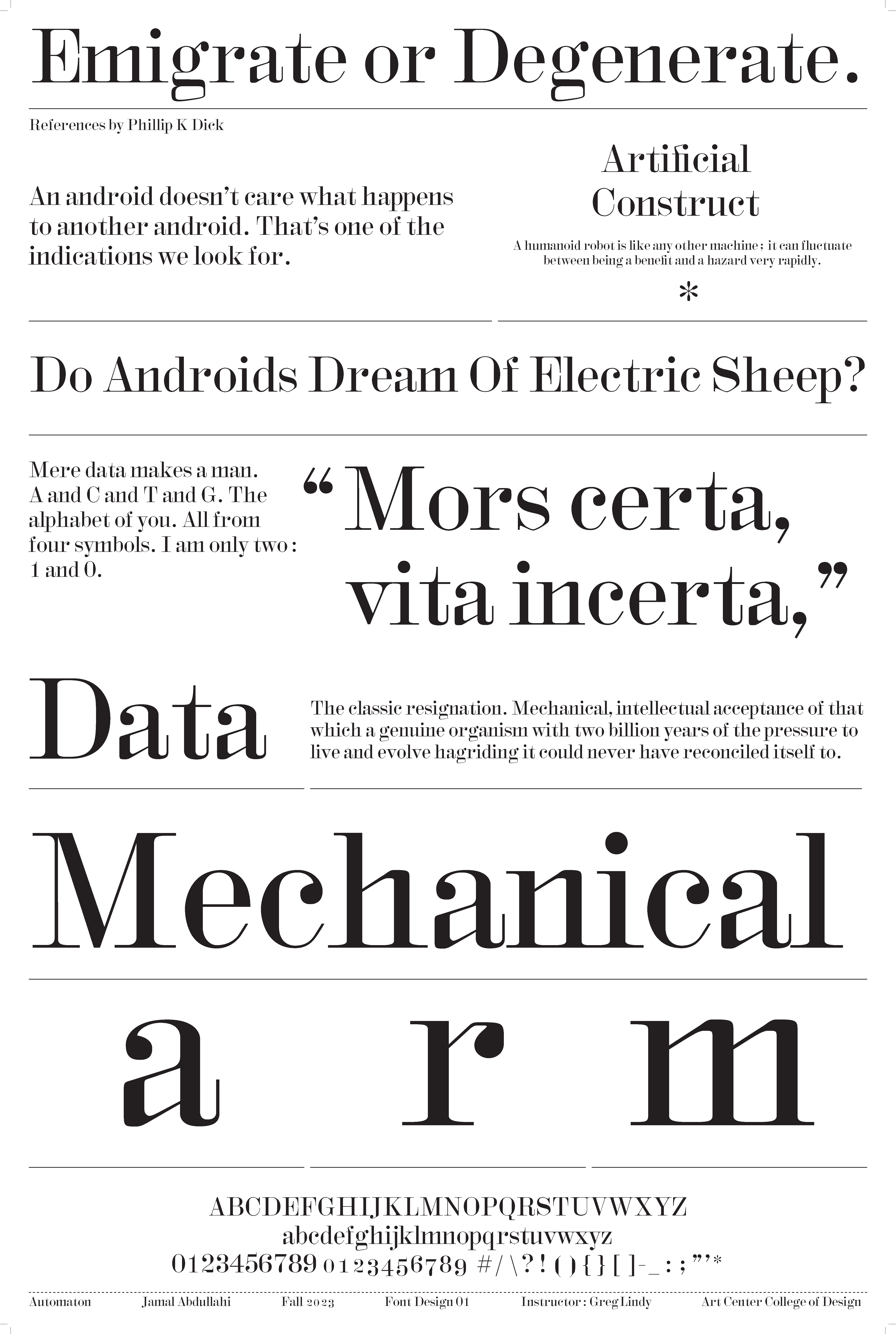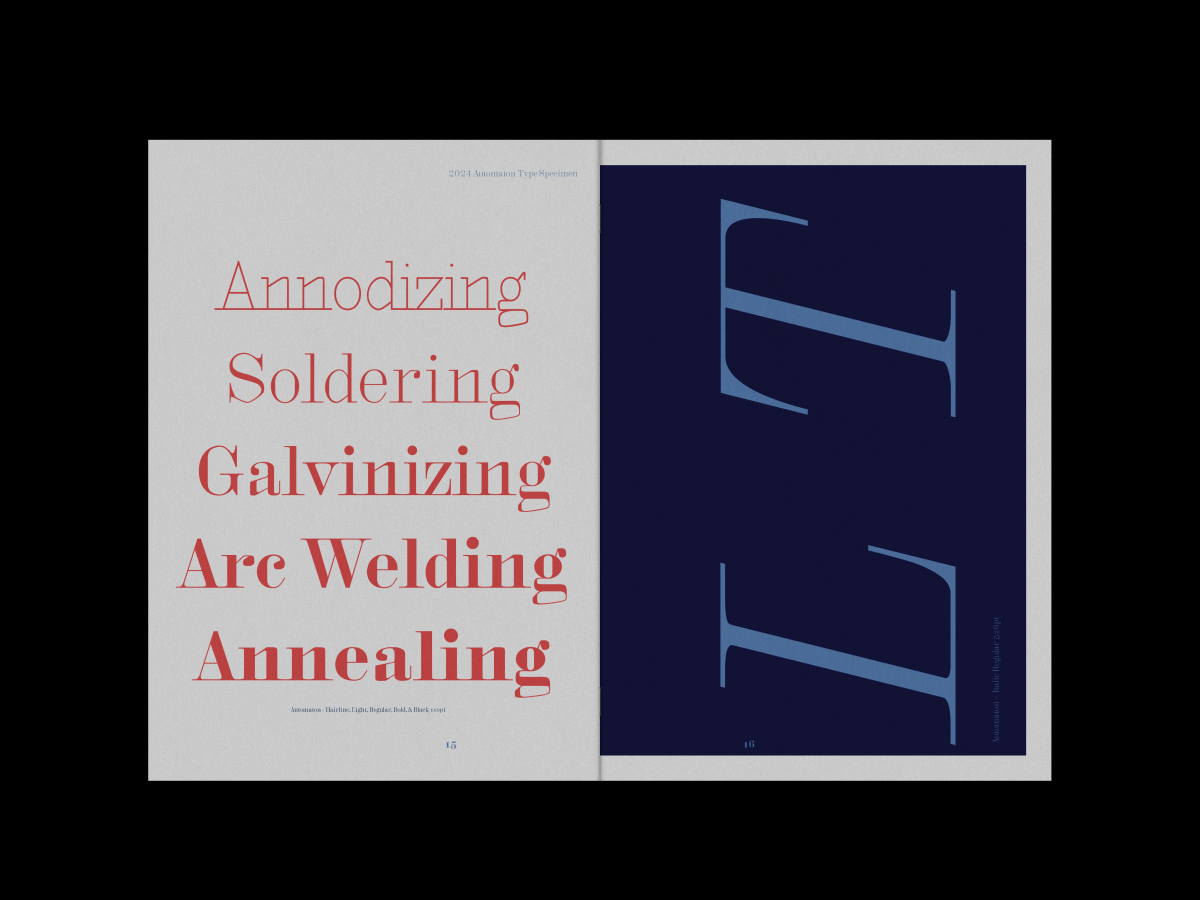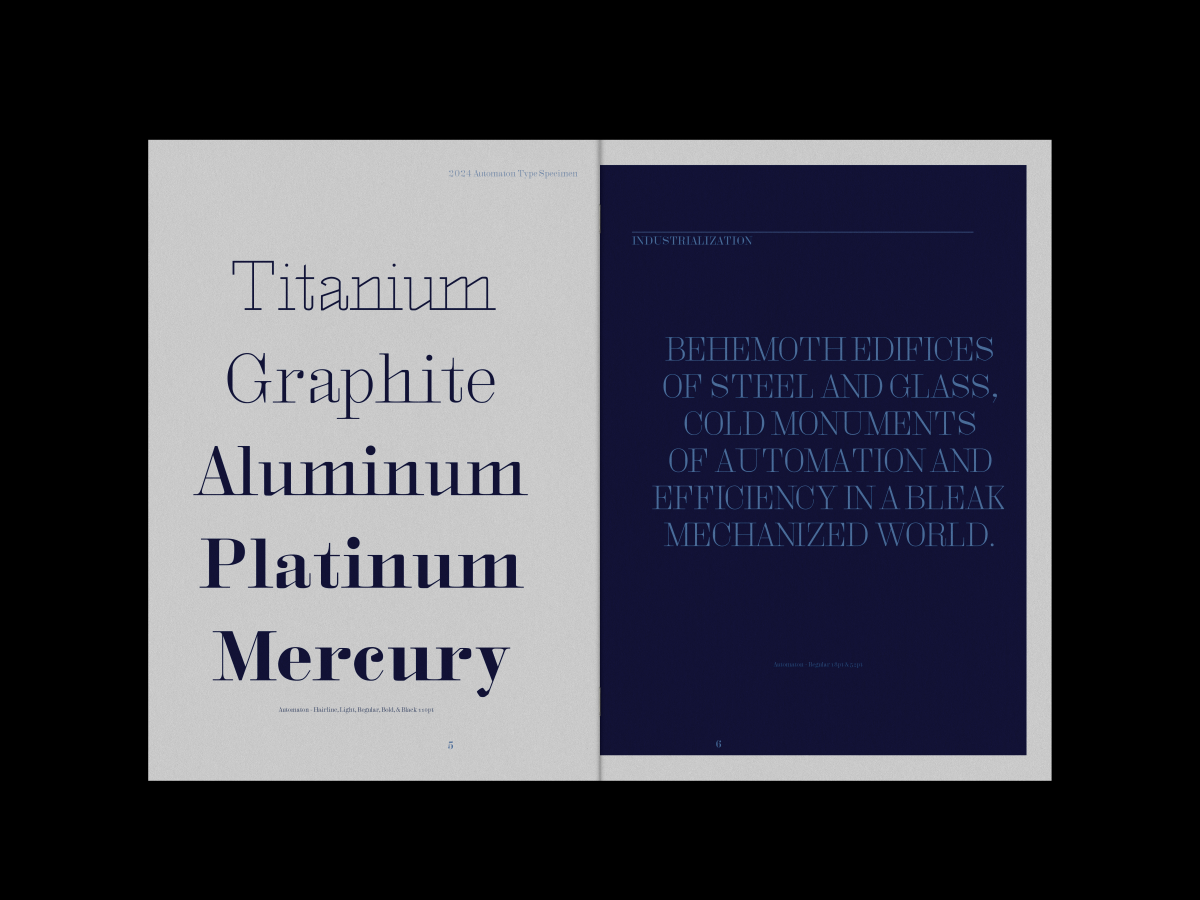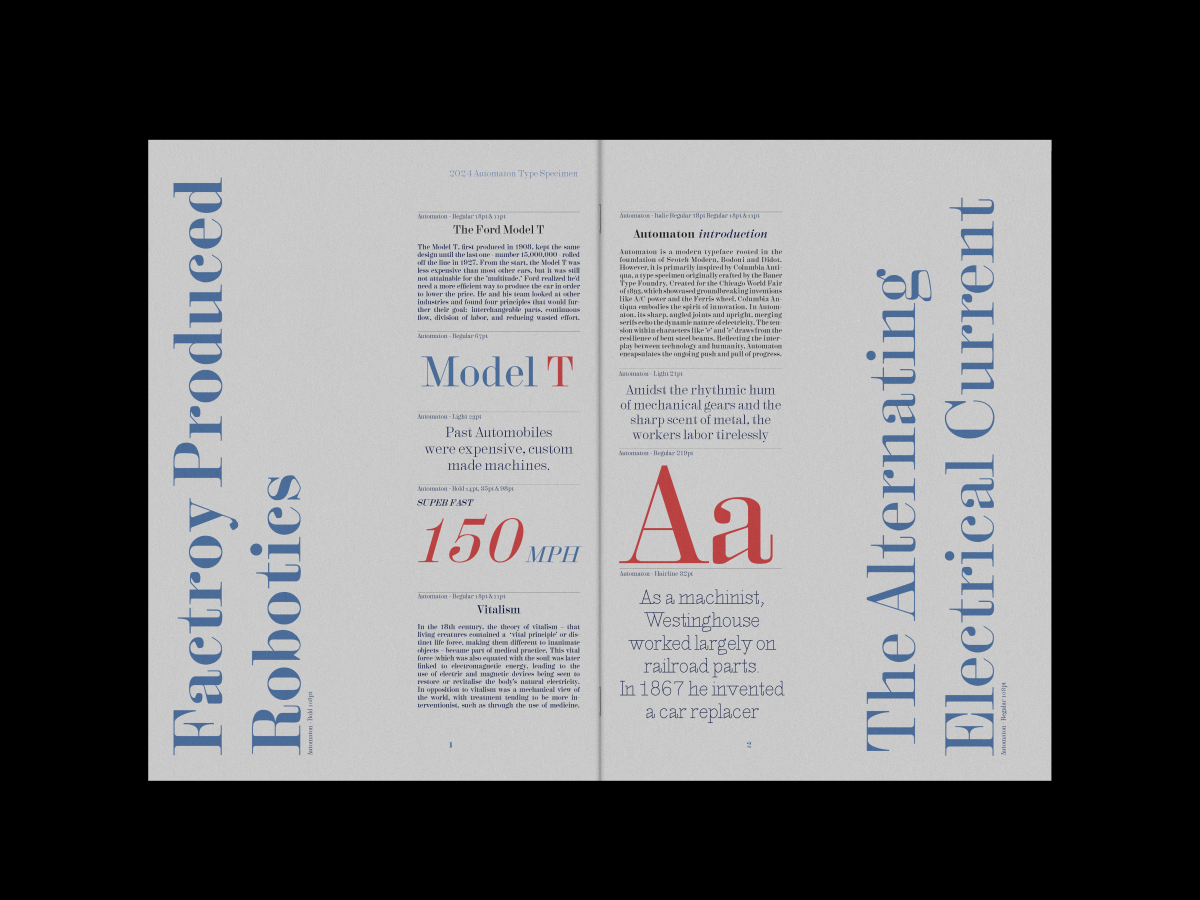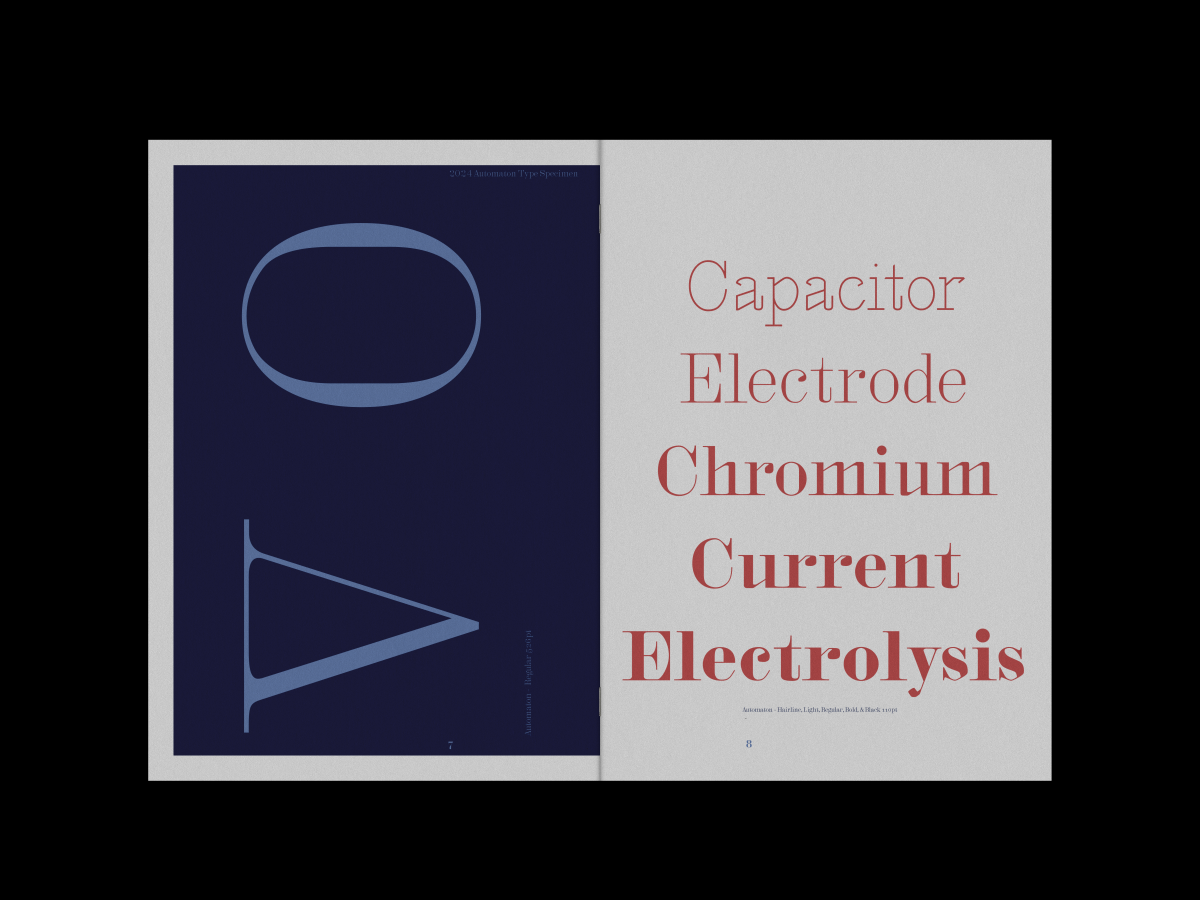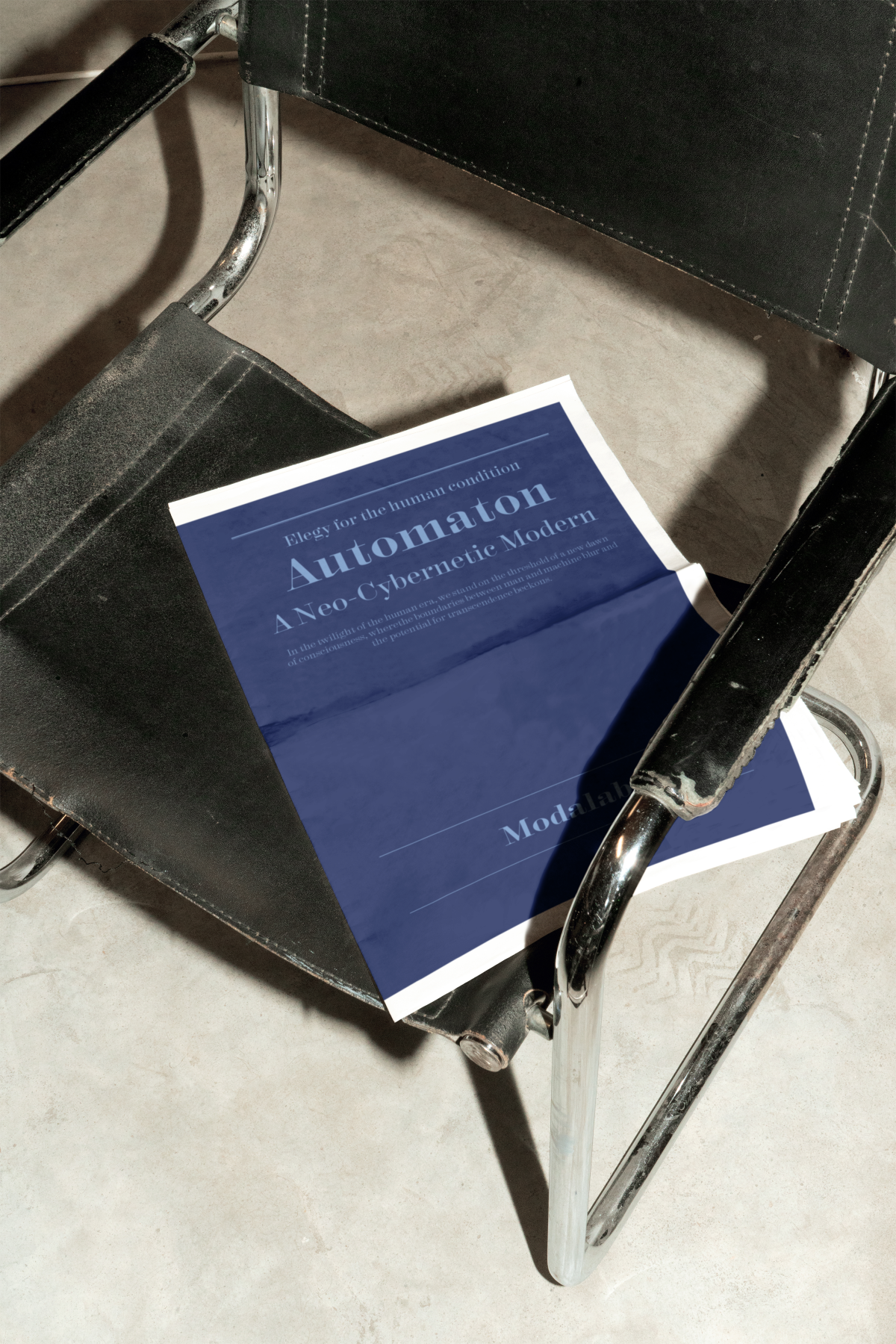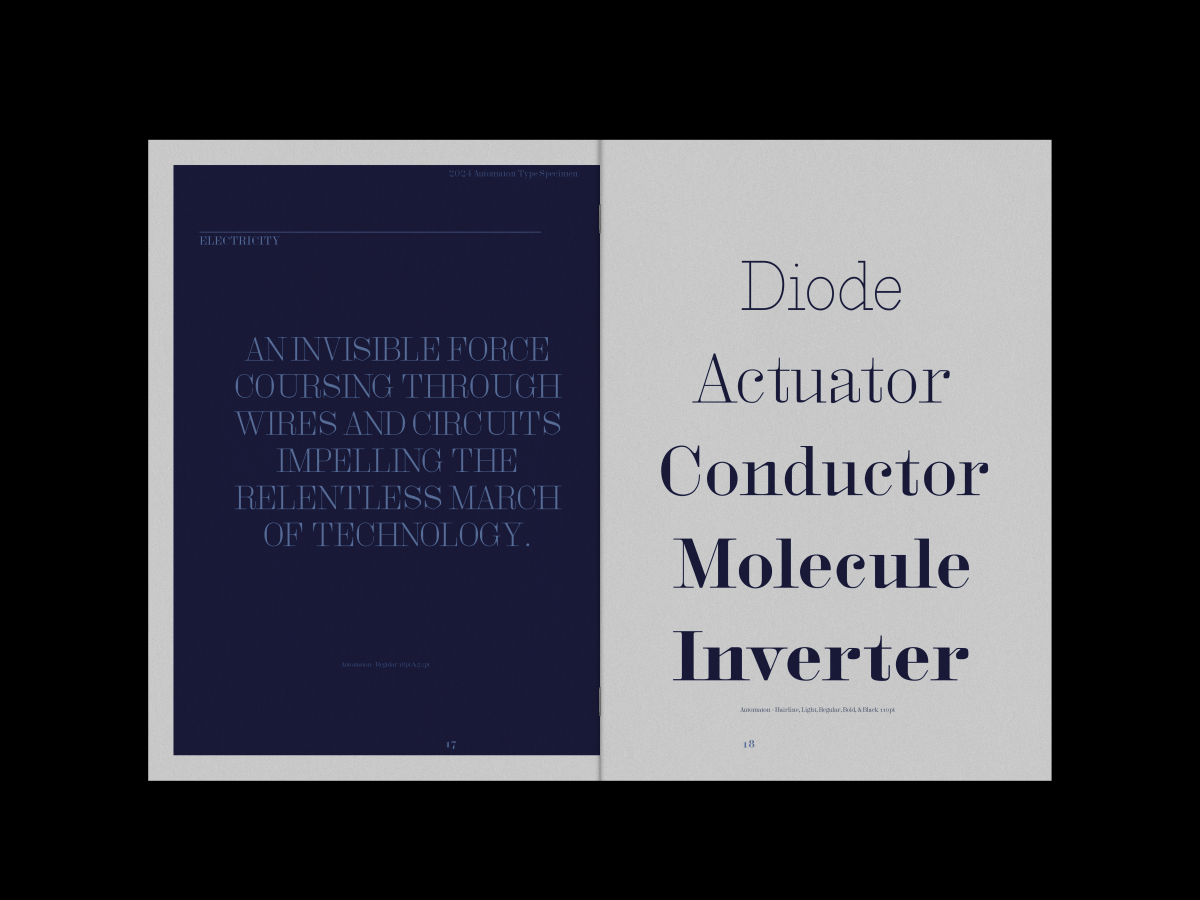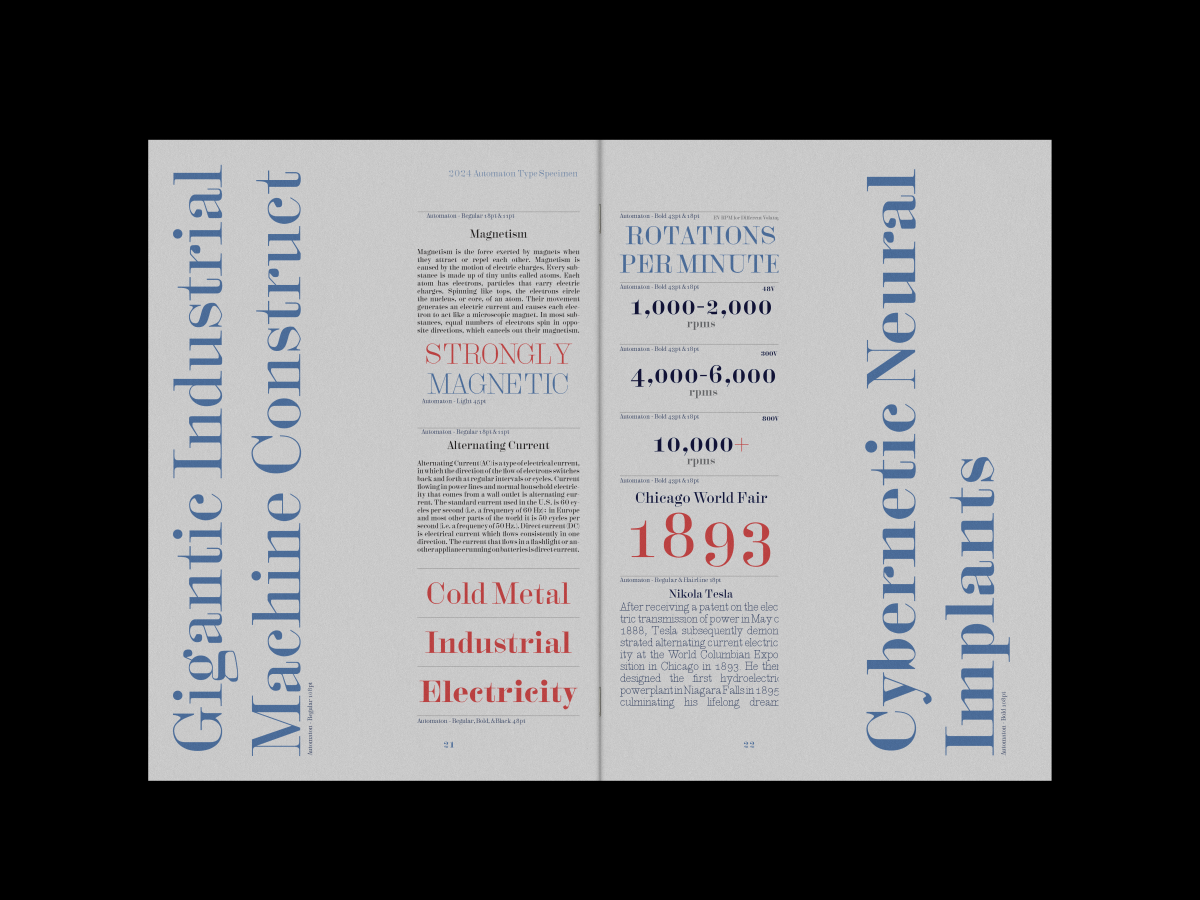
Jamal Abdullahi
Automaton Typeface
This is a typeface that embodies the relationship between humanity and machine just as my thesis is covering this aspect. I was inspired by a typeface called columbia antiqua created specifically for the chicago world fair of 1893. This typeface was under the classification of scotch modern and had distinct angular characteristics that stuck out to me in the n, m, and a. I intend to build on the existing typefaces characteristics.
Learning Outcomes:
I've been learning alot about letter relationships, glyphs software, letter spacing, the history of typography, and the nuances of type design. I've also learned that the 1893 world fair is famous for bringing railroad, electricity, radio, and agricultural innovations. The scotch modern is also characteristic of the victorian age of design. the historical context gives me a foundation to work with in inspiration.